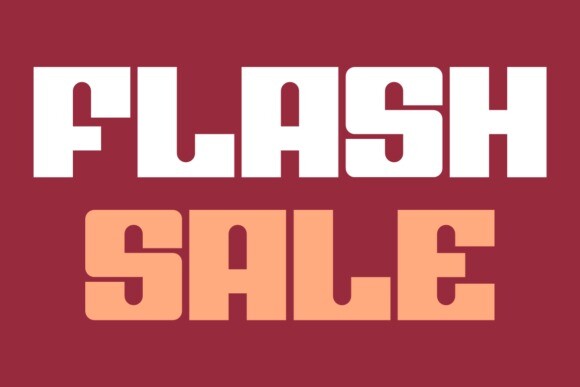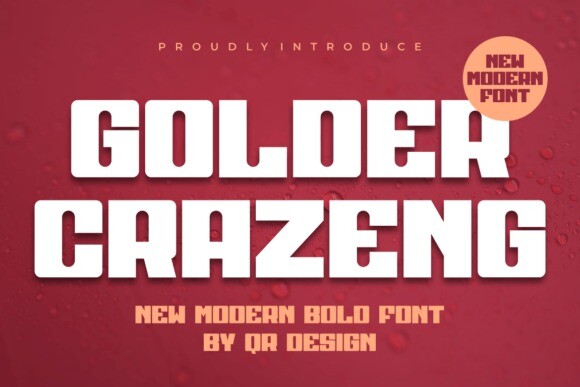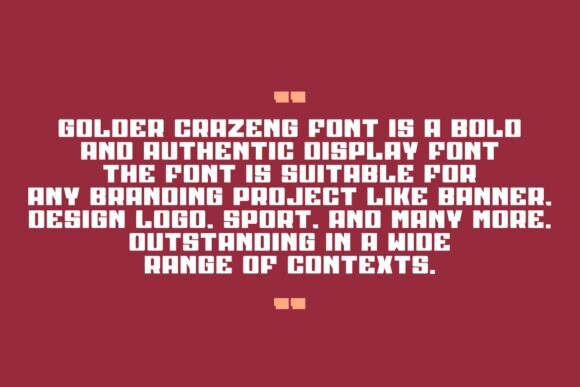
Golder Crazeng Font
Golder Crazeng is a modern and strong sans display font. Add it to your posters, social media posts, stickers, apparel, and packaging, and you will be amazed by the generated outcome!